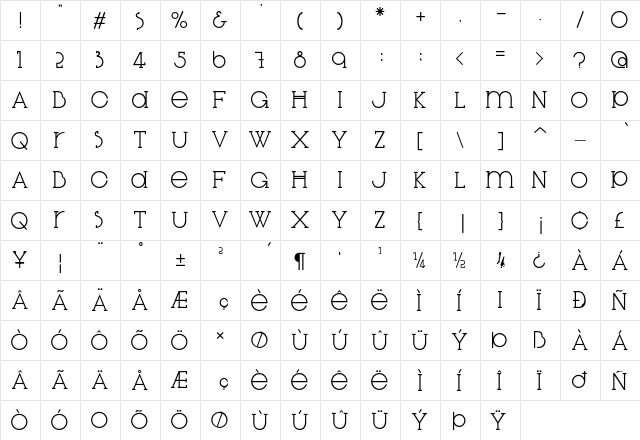
DiglossiaStd Regular
| Foundry | jonathan bennett |
| Designer | Jonathan Bennett |
Design Context for DiglossiaStd Typeface
DiglossiaStd takes a measured approach to typography — its balanced proportions and neutral character make it a reliable workhorse for both digital and print work.